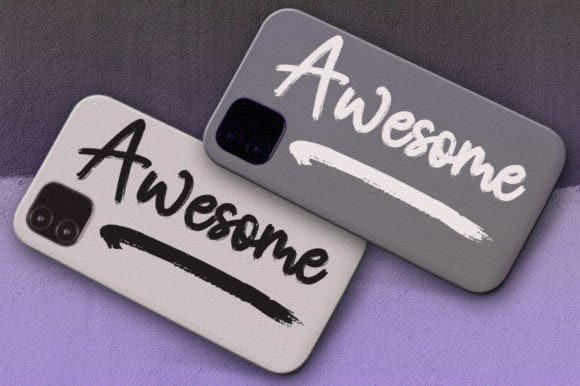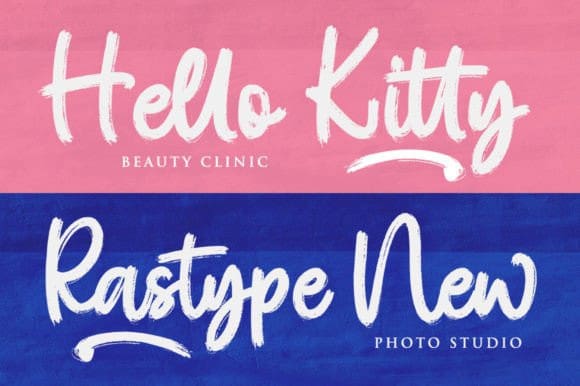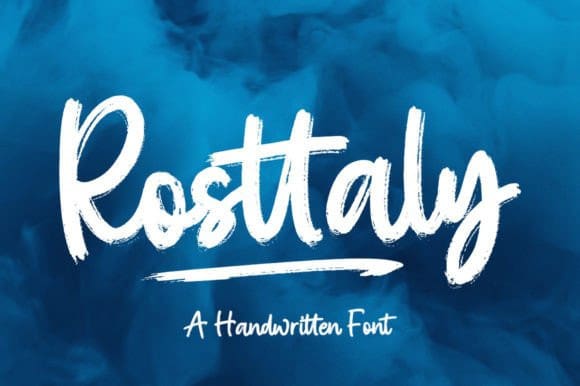
Rosttaly Brush Font
Rosttaly Brush Font is a textured brush font, with natural handcraft and underlines, and ligatures that make your designs more interesting. Suitable for use in designs, such as clothing, invitations, book titles, stationery designs, quotes, branding, logos, and many more. This font is PUA encoded which means you can access all of the glyphs and swashes freely!